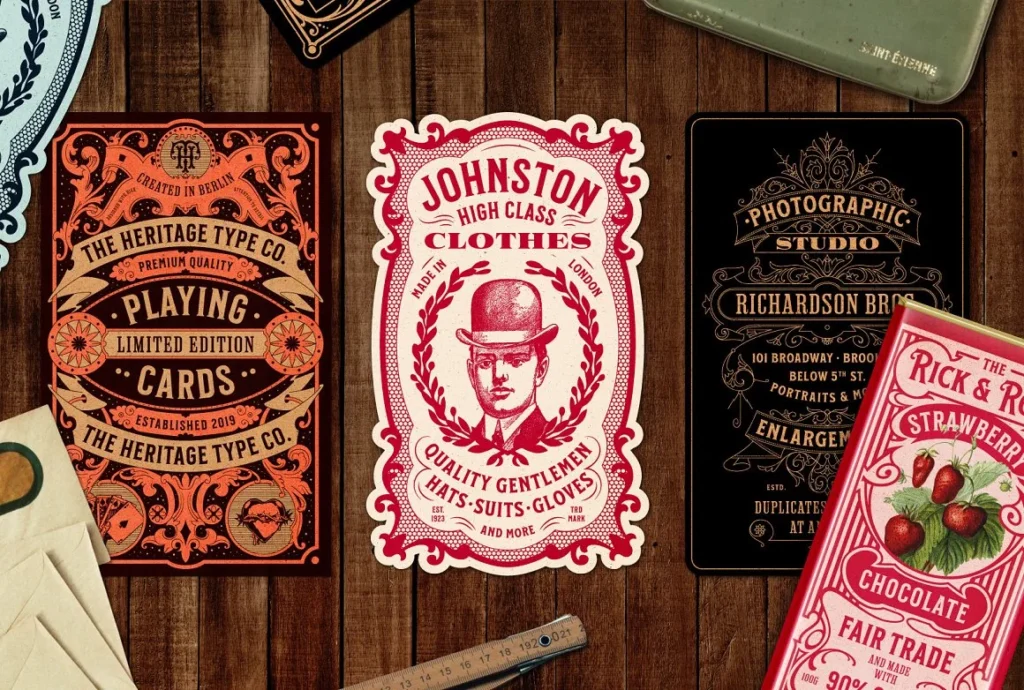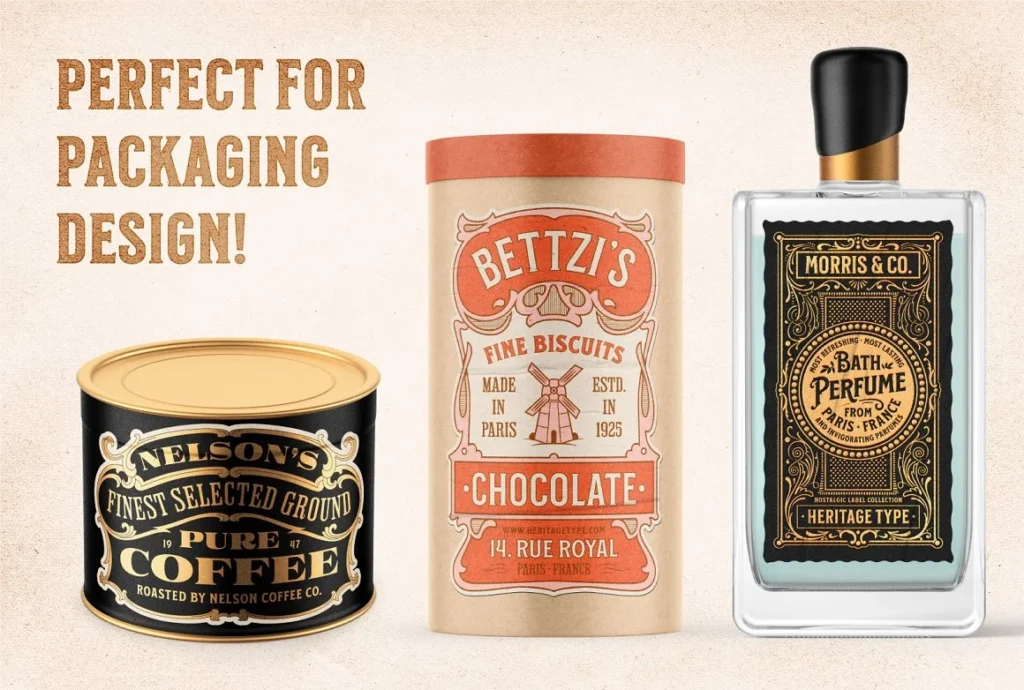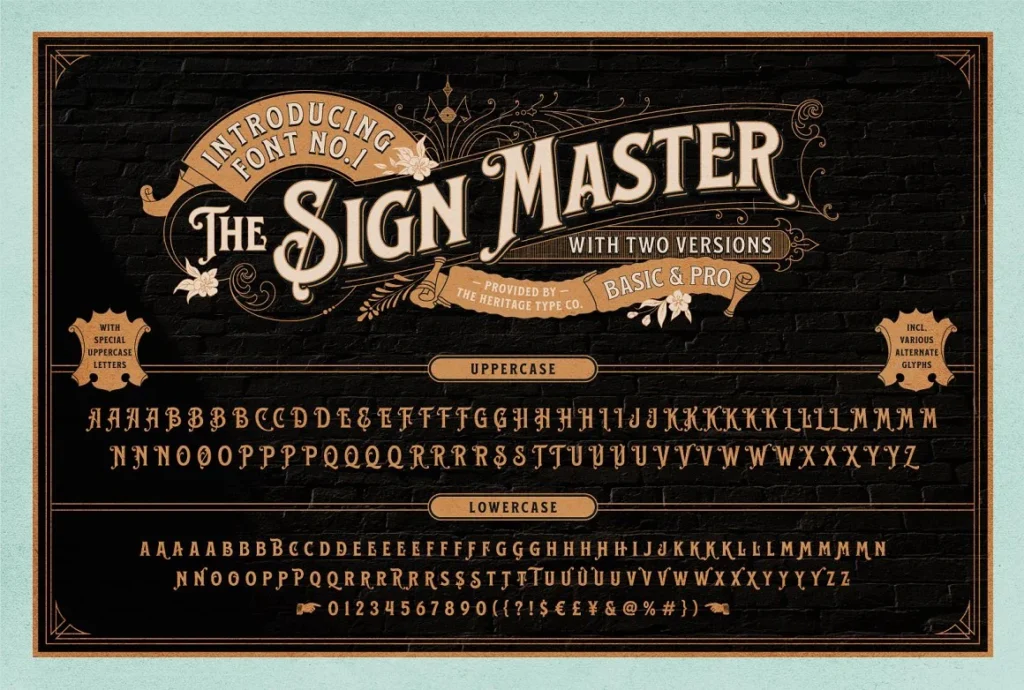
The Nostalgic Font and Name Assortment incorporates 34 adjustable vector mark plans, 4 one-of-a-kind classic textual styles, and more than 140 separate components with a really great plan standard.
The Nostalgic Textual style and Name Assortment turn out perfect for any sort of bundling configuration project, for example, food, spirits, lager, beauty care products, lemonades, desserts, playing a game of cards, dresses, and considerably more.